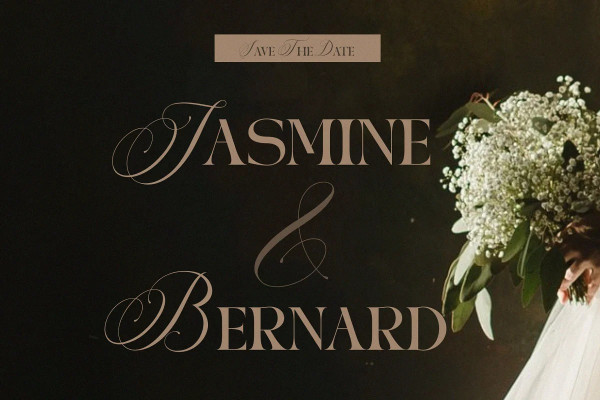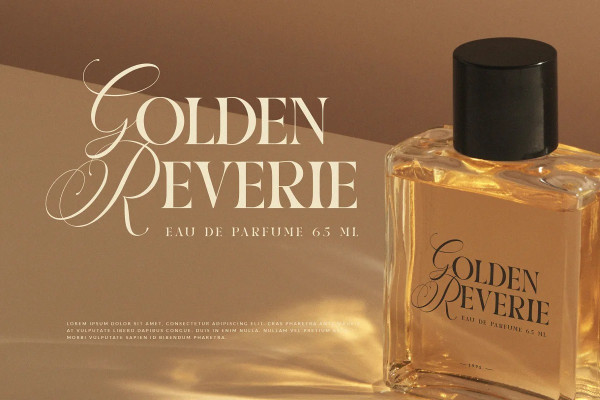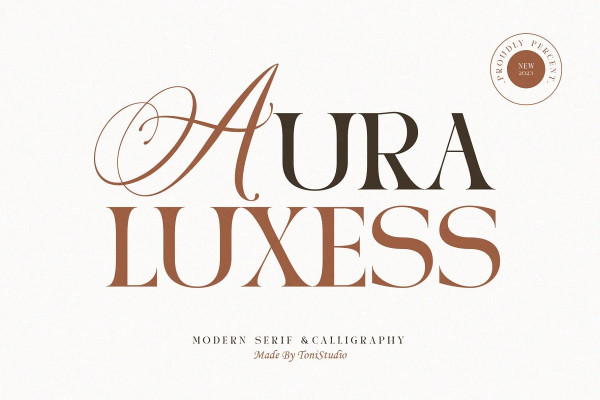
Aura Luxess Font
Aura Luxess Font – a stunning combination of a calligraphic script font and a modern serif font that exudes sophistication and luxury. Calligraphic script fonts offer capital letters with a luxurious feel and natural flow, while serif fonts that appear bold with precision and thin add a touch of luxury. a beautiful binder to add alternative lettering options that make it possible to get some beauty into a great project. Ideal for creating quote posters, this pack is perfect for branding, marketing materials and wedding stationery. Use it to create visually stunning designs for social media, inspirational quotes, logos, invitations and more. The AURA LUXESS font encapsulates the latest duo font trend and is perfect for anyone looking to create designs with a classy, ​​modern elegance aesthetic.